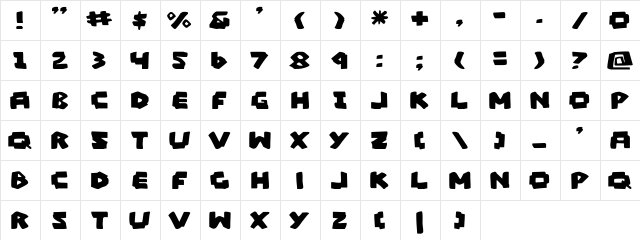
Mad Marker Regular Font Preview
Mad Marker Regular
Mad Marker Regular Font Details
Design Context for Mad Marker Typeface
Mad Marker is a composed and adaptable typeface that performs quietly and consistently across a wide range of design contexts.